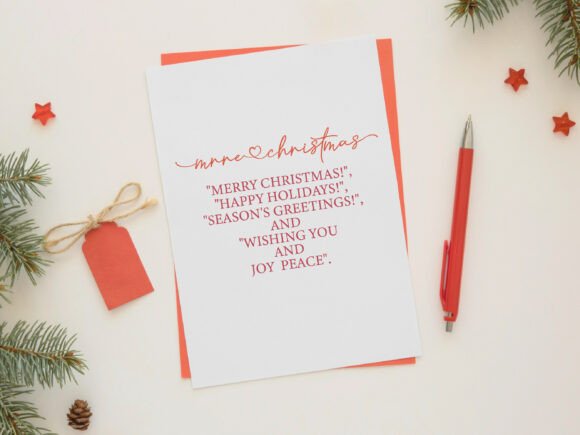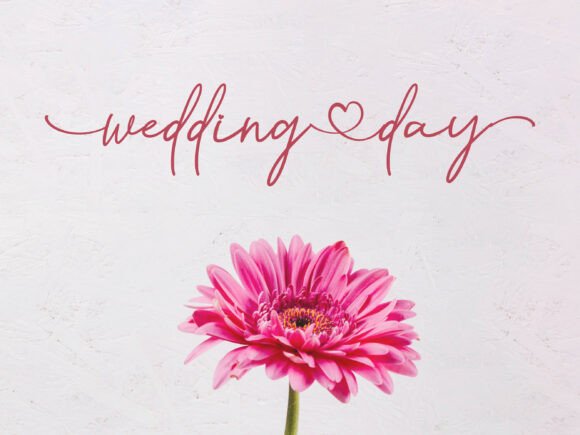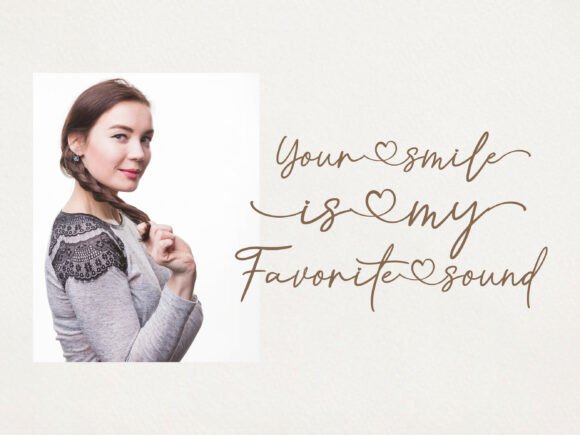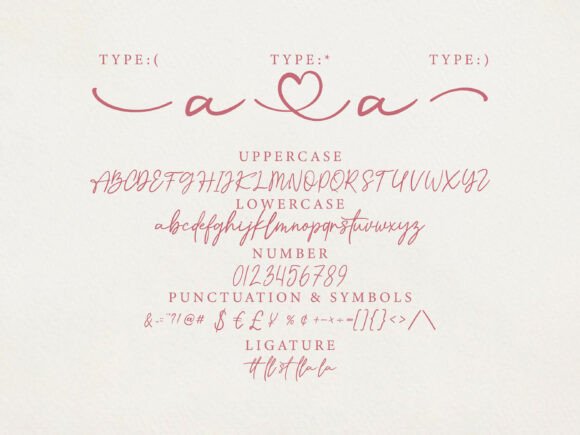
Introduction to Honey Day Font
As designers, we’ve all been there – staring at a blank canvas, searching for the perfect font to bring our creative project to life. The moment of discovery is like a breath of fresh air, and for those who’ve fallen in love with the Honey Day Font, that moment is all too familiar. This delicate, intimate script font has captured the hearts of designers worldwide, and for good reason.
The Honey Day Font’s unique combination of ultra-thin strokes and charming heart-shaped connectors is a design lover’s dream come true. Its continuous, fluid movement is reminiscent of a fine pen stroke, making it the perfect choice for projects that require a romantic, gentle touch. Whether you’re working on a wedding invitation, a custom jewelry card, or a social media graphic, the Honey Day Font is sure to add a touch of sweetness and sophistication to your design.
Key Features of Honey Day Font
- Unique Hand-Drawn Design: Honey Day Font features a distinctive hand-drawn style, making it perfect for creative projects that require a personal touch.
- High-Quality Typography: This font is designed to provide crisp and clear typography, ensuring that your text stands out on any background.
- Transparent Background: The font’s transparent background allows for seamless integration with any design, giving you complete control over the visual elements of your project.
- Large Character Set: Honey Day Font includes a comprehensive character set, including uppercase and lowercase letters, numbers, and special characters.
- Resolution: The font is designed to be resolution-independent, ensuring that it looks great on any device, from low-resolution displays to high-end monitors.
Honest Review: Honey Day Font
Here’s what I liked about the Honey Day Font: ✨ It’s incredibly versatile and can be used for a wide range of projects, from wedding invitations to branding materials. ✨ The transparent background is a great feature, allowing for seamless integration with other design elements. ✨ The font is also highly customizable, making it easy to adjust to fit your specific design needs.
However, there are a few limitations to consider: ⚠️ The font is not as detailed as some of the more premium options on the market. ⚠️ Some users may find the font’s rounded edges to be too playful or juvenile for certain projects.
Overall, I was impressed with the Honey Day Font. While it may not be the most robust design resource, it’s a great option for designers on a budget or working on smaller projects. With a little creativity, this font can help you achieve some amazing results.
- May not be suitable for all design projects
- Less detailed than premium options
Tips for Getting the Most Out of the Honey Day Font
To get the most out of the Honey Day Font, be sure to use it on a transparent background to create a high-quality design. You can also experiment with different font sizes and styles to create a unique and creative look.
The Honey Day Font is perfect for use in a variety of creative projects, including social media graphics, blog posts, and marketing materials. Its high-quality design and transparent background make it ideal for use in a variety of design applications.